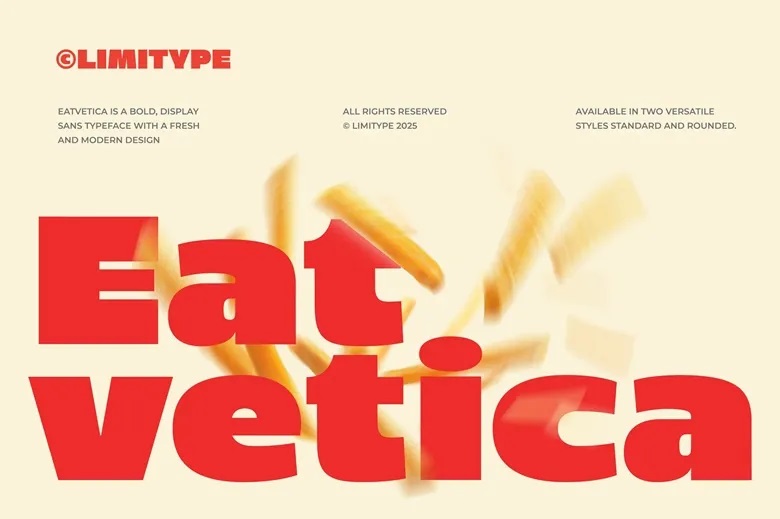
Eatvetica Font
Give every design some bold flavor with the Eatvetica Bold Food Font, the font that is specialized to the food community and food-inspired designs. The bold, well-proportioned typography of Eatvetica creates the presence of strength and friendliness at the same time, which is the reason it works perfectly in menus of restaurants, food packaging, and cafe branding.
Offered in two unique styles: Standard, to create a modern, clean look, and Rounded, to have a warmer, more playful feel. This combo gives the best flexibility to satisfy all your creative works.
Eatvetica Display Font